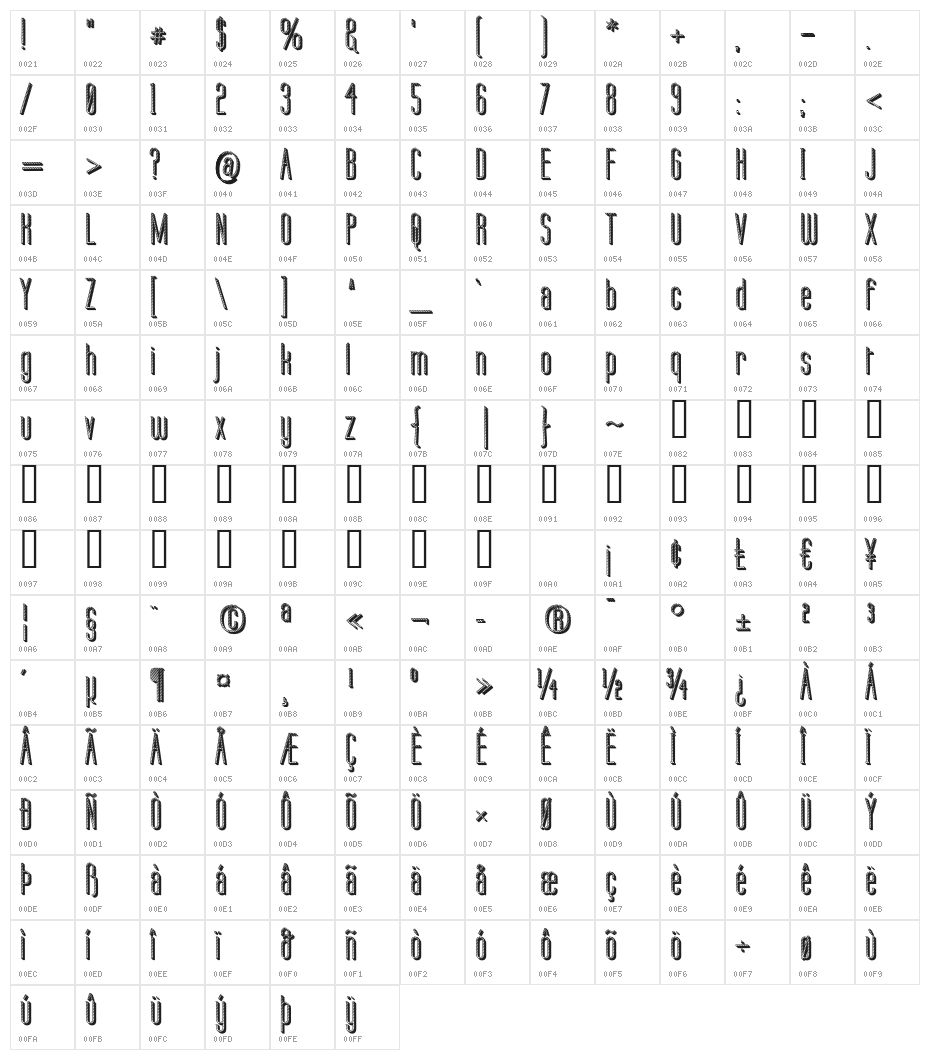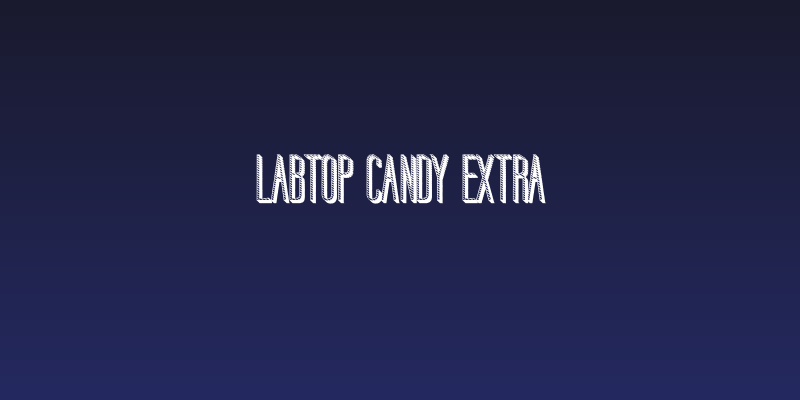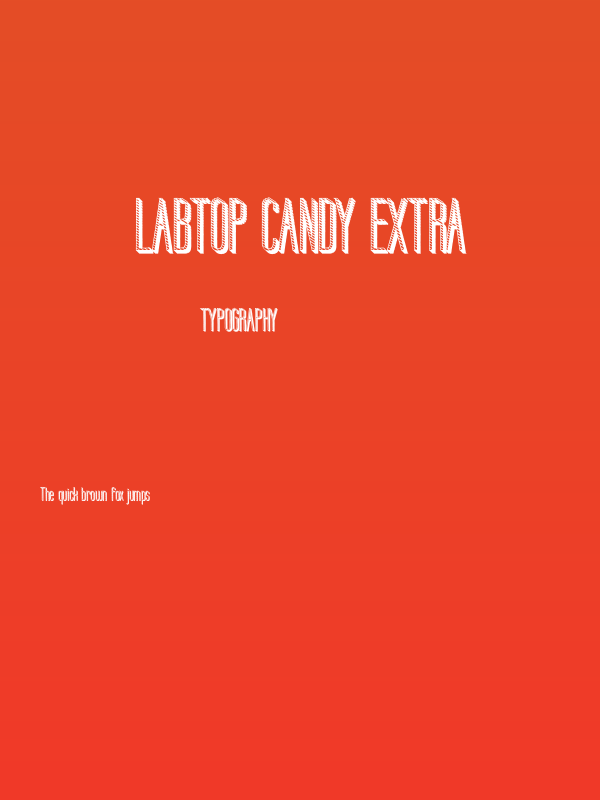
Labtop Candy Extra Font
Labtop Candy Extra Description
This font features a bold, decorative style with a unique striped pattern running through each character. The uppercase letters are tall and narrow, giving a sense of height and elegance, while the lowercase letters maintain a consistent style, ensuring readability. The numbers and special characters are designed to match the overall aesthetic, making them suitable for a variety of creative projects. The font's playful yet structured appearance makes it ideal for eye-catching designs.
| Proposed Projects | Ideal for posters, logos, and branding materials that require a striking and memorable appearance. |